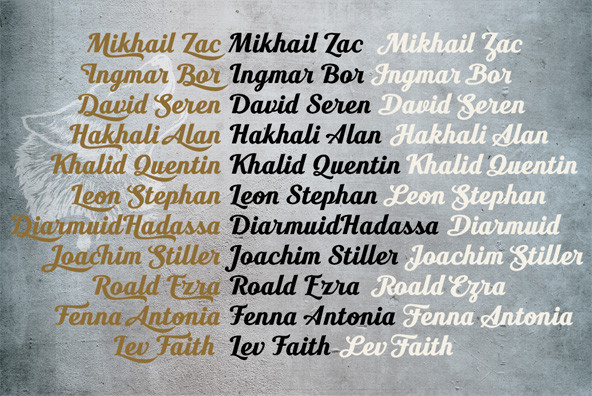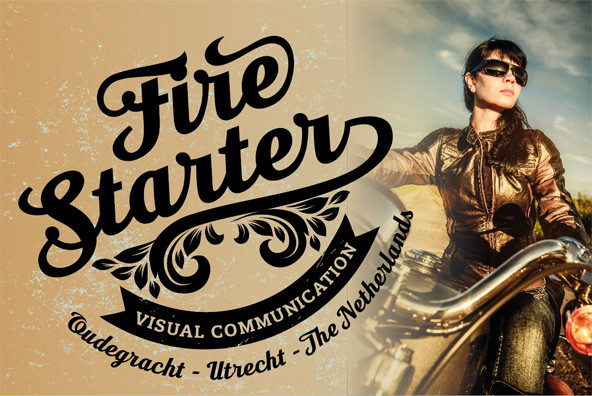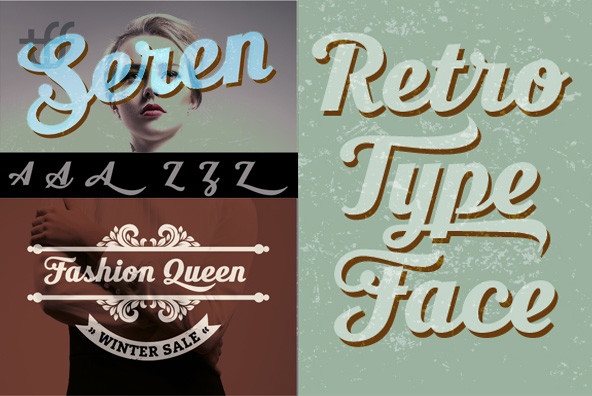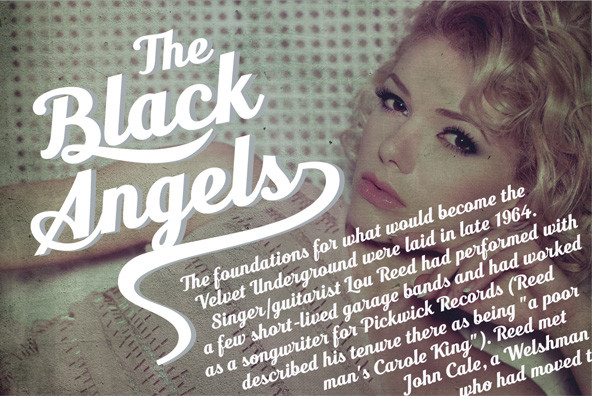
Seren Script 1
Seren Script is a sans serif version of my previous Moonface font. Seren is a retro font that contains 430 glyph, the OpenType feature can be used to create your own custom typo and design. Very useful for t-shirts, banners, posters, etc.